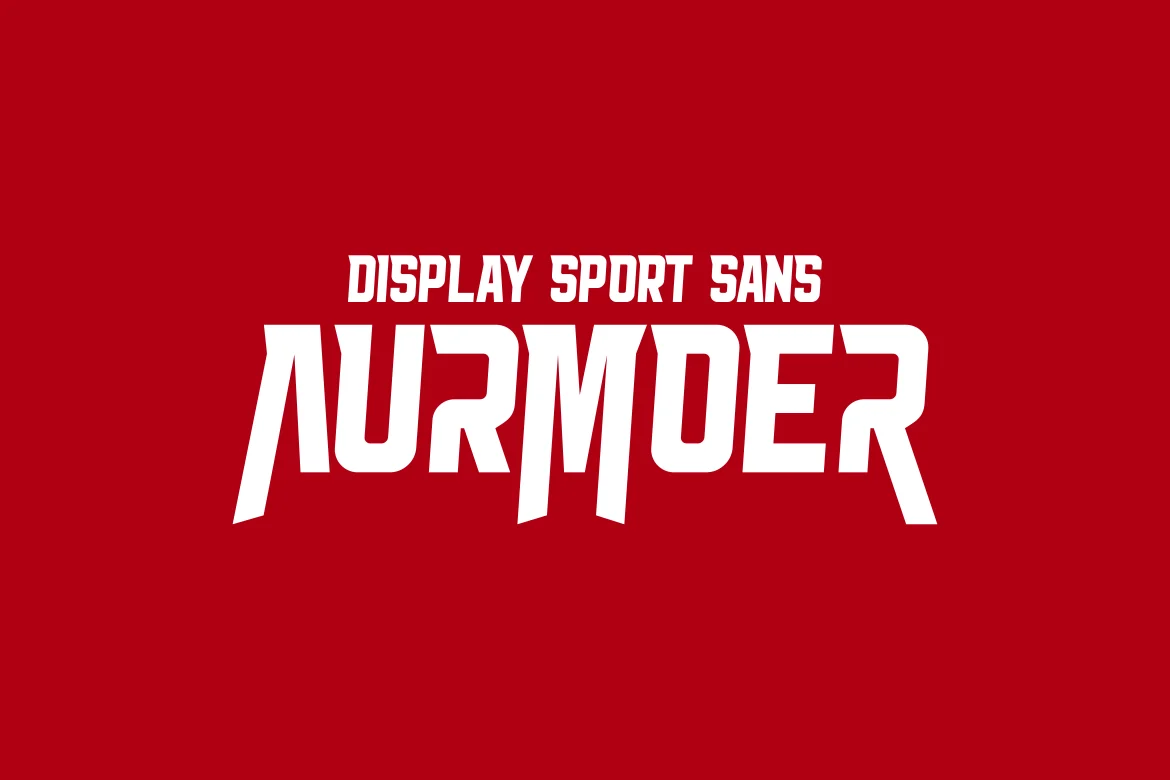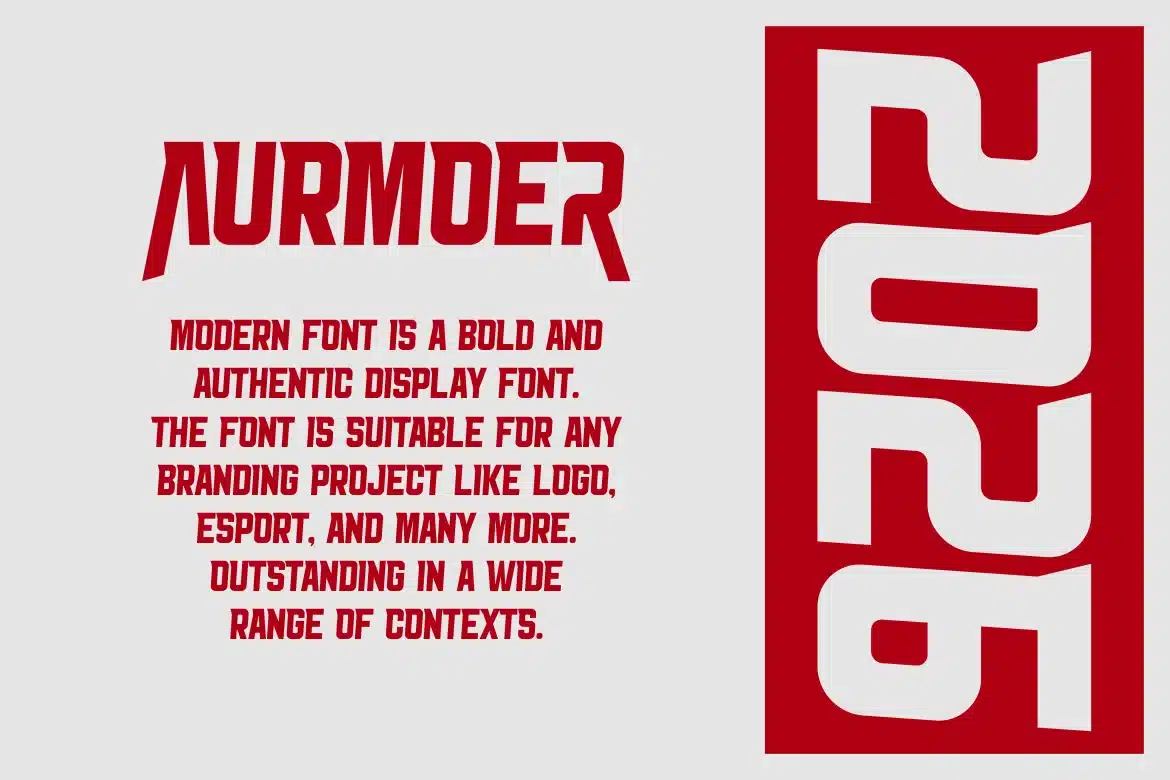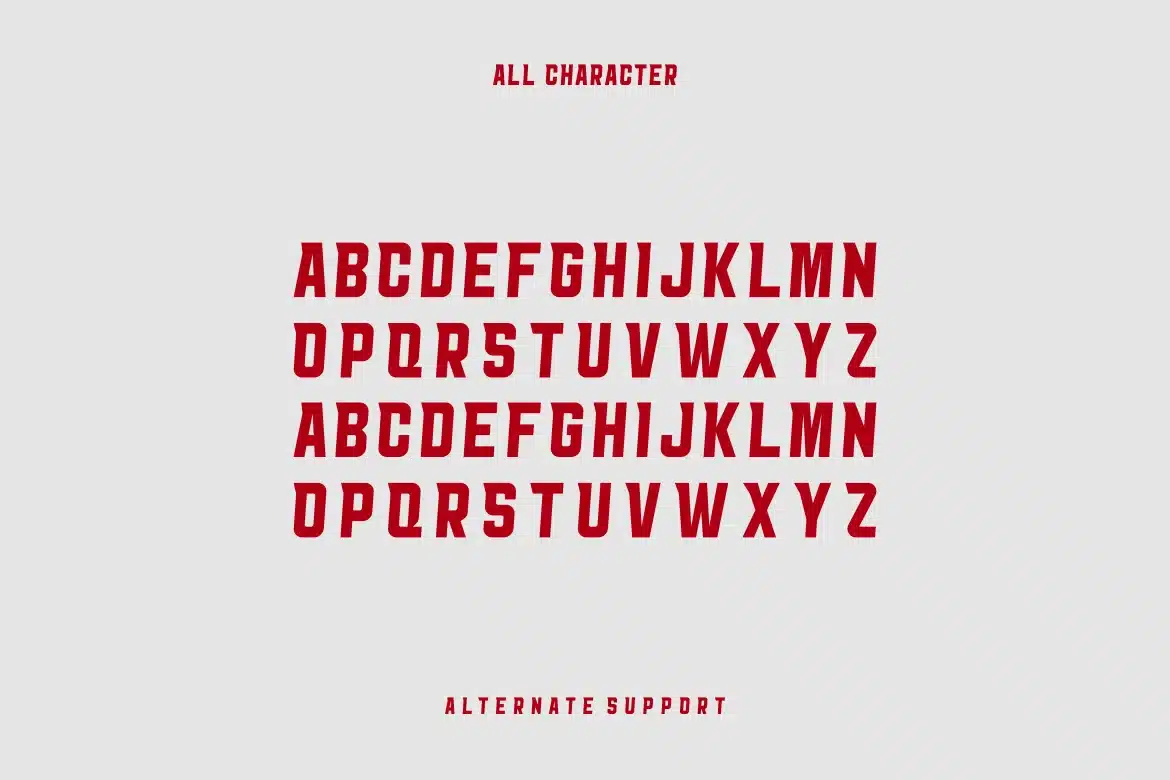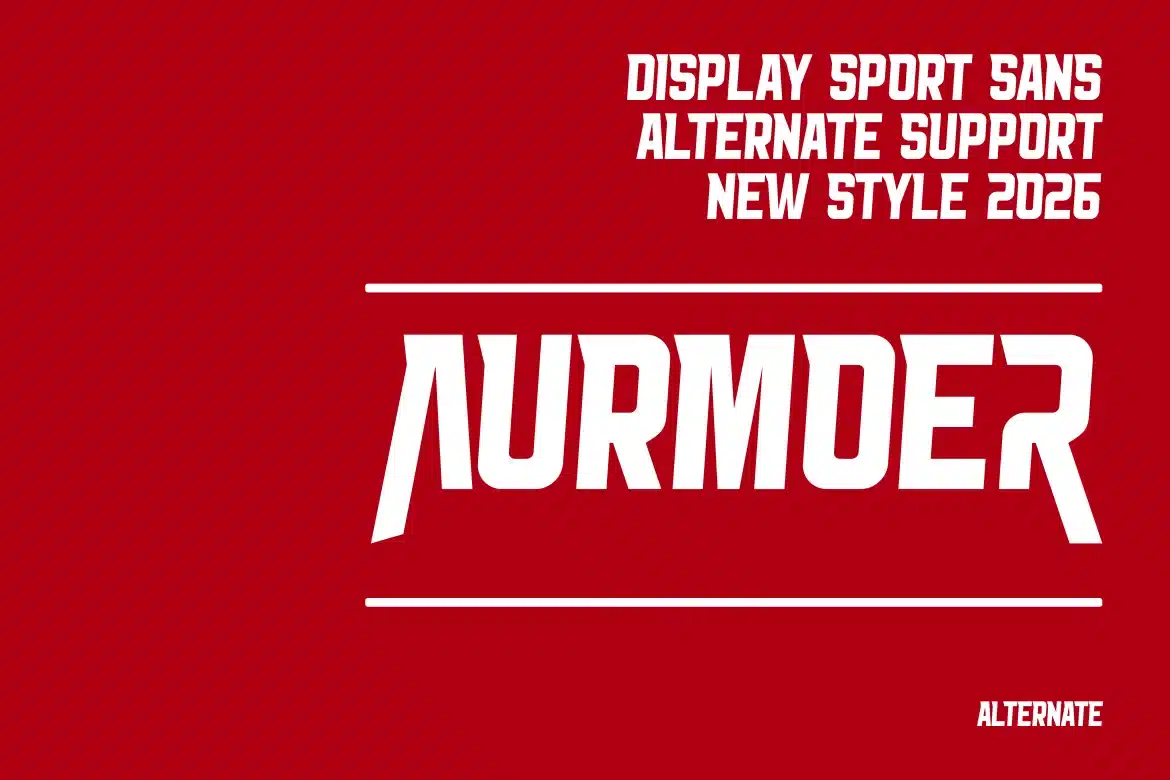
Aurmoer – Display Sport Sans Font
Introducing our new product Aurmoer - Display Sport Sans
Aurmoer - Display Sport Sans is a bold and authentic display font. The font is suitable for any branding project like logo, esport, and many more. outstanding in a wide range of contexts.
Alternate